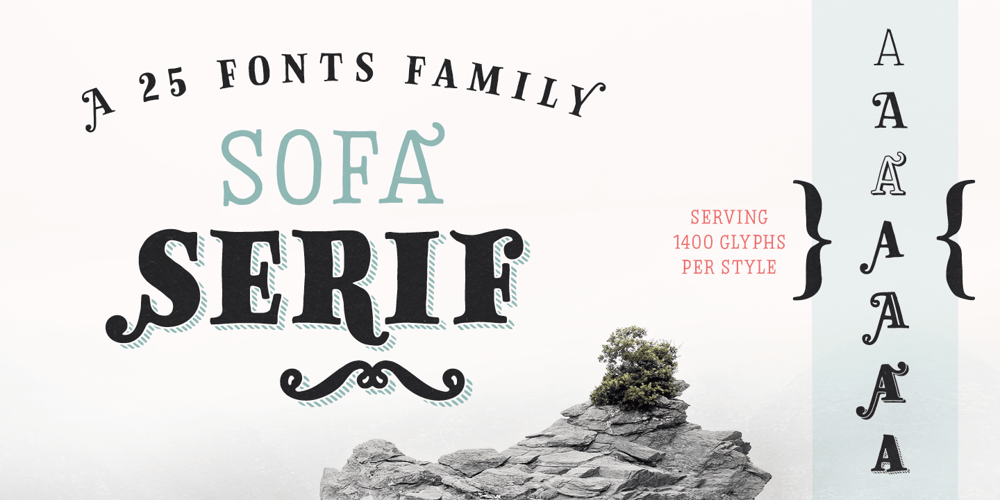
Sofa Serif Hand Font Family was designed by Georg Herold-Wildfellner and published by FaceType. Sofa Serif Hand contains 25 styles and family package options. All handmade – the versatile Sofa Serif Family. Sofa Serif’s handcrafted character is friendly and eye-catching. Stylish features and alternates add personality and let you create unique logos and stunning headlines. The family boasts 5 weights from Monoline to Fat, each containing more than 1000 glyphs, plenty of OpenType features and full ISO latin 1 & 2 language support. In addition, extra shadow-, 3D-, inline- and hatched-styles round out the package. 7 font-styles are especially created to be used as layers/layered styles. Sofa Serif has a sister: view Sofa Sans here. · High contrast is one of Sofa Serif’s key features. To maintain a wide range of use, choose from two optical sizes: Standard and Display with a maximum of contrast especially in the heavier weights. This makes it a flexible solution for any display and editorial need. · Sofa Serif includes a variety of OpenType alternates which add uniqueness to your work. OpenType features include Swashes- and Titling-Alternates, Beginnings and Endings and a number of alternates within various Stylistic-Sets for even more variation. OpenType Swashes- and Titling-Alternates are smart features which automatically adjust all swashy letters to the available white space. Switch one on and let Sofa Serif do the rest. · Please download the Sofa Serif Font Guide for all details. · Sofa Serif is an organic, rough and decorative hand-drawn/handmade all-caps display-family for packaging, posters, book-covers, wedding-, kids-, food- and logo-design and will best stand out in huge grades. Its handmade origin is subtle yet visible. · Have fun! · View other fonts from Georg Herold-Wildfellner: Sofa Serif | Sofa Sans | Mila Script Pro | Pinto | Supernett | Mr Moustache | Aeronaut | Ivory | Weingut · Language Report for Sofa Serif / 203 languages supported: Abenaki, Afaan Oromo, Afar, Afrikaans, Albanian, Alsatian, Amis, Anuta, Aragonese, Aranese, Aromanian, Arrernte, Arvanitic, Asturian, Atayal, Aymara, Bashkir, Basque, Bemba, Bikol, Bislama, Bosnian, Breton, Cape Verdean, Catalan, Cebuano, Chamorro, Chavacano, Chichewa, Chickasaw, Cimbrian, Cofan, Corsican, Creek, Crimean Tatar, Croatian, Czech, Danish, Dawan, Delaware, Dholuo, Drehu, Dutch, English, Estonian, Faroese, Fijian, Filipino, Finnish, Folkspraak, French, Frisian, Friulian, Gagauz, Galician, Ganda, Genoese, German, Gooniyandi, Greenlandic, Guadeloupean, Gwichin, Haitian Creole, Han, Hawaiian, Hiligaynon, Hopi, Hotcak, Hungarian, Icelandic, Ido, Ilocano, Indonesian, Interglossa, Interlingua, Irish, Istroromanian, Italian, Jamaican, Javanese, Jerriais, Kala Lagaw Ya, Kapampangan, Kaqchikel, Karakalpak, Karelian, Kashubian, Kikongo, Kinyarwanda, Kiribati, Kirundi, Klingon, Ladin, Latin, Latino Sine, Latvian, Lithuanian, Lojban, Lombard, Low Saxon, Luxembourgish, Maasai, Makhuwa, Malay, Maltese, Manx, Maori, Marquesan, Meglenoromanian, Meriam Mir, Mohawk, Moldovan, Montagnais, Montenegrin, Murrinhpatha, Nagamese Creole, Ndebele, Neapolitan, Ngiyambaa, Niuean, Noongar, Norwegian, Novial, Occidental, Occitan, Oshiwambo, Ossetian, Palauan, Papiamento, Piedmontese, Polish, Portuguese, Potawatomi, Qeqchi, Quechua, Rarotongan, Romanian, Romansh, Rotokas, Sami Inari, Sami Lule, Sami Nothern, Sami Southern, Samoan, Sango, Saramaccan, Sardinian, Scottish Gaelic, Serbian, Seri, Seychellois, Shawnee, Shona, Sicilian, Silesian, Slovak, Slovenian, Slovio, Somali, Sorbian Lower, Sorbian Upper, Sotho Northern, Sotho Southern, Spanish, Sranan, Sundanese, Swahili, Swazi, Swedish, Tagalog, Tahitian, Tetum, Tok Pisin, Tokelauan, Tongan, Tshiluba, Tsonga, Tswana, Tumbuka, Turkish, Turkmen, Tuvaluan, Tzotzil, Uzbek, Venetian, Vepsian, Volapuk, Voro, Wallisian, Walloon, Waraywaray, Warlpiri, Wayuu, Welsh, Wikmungkan, Wiradjuri, Wolof, Xhosa, Yapese, Yindjibarndi, Zapotec, Zulu, Zuni